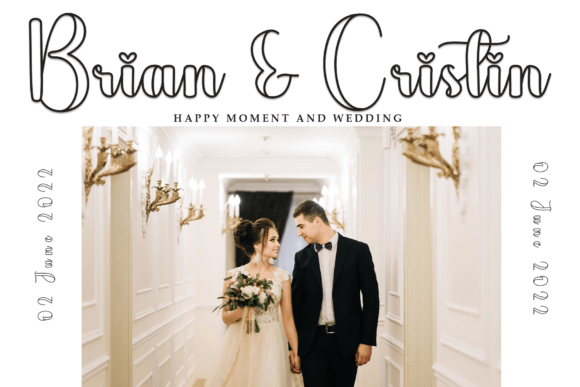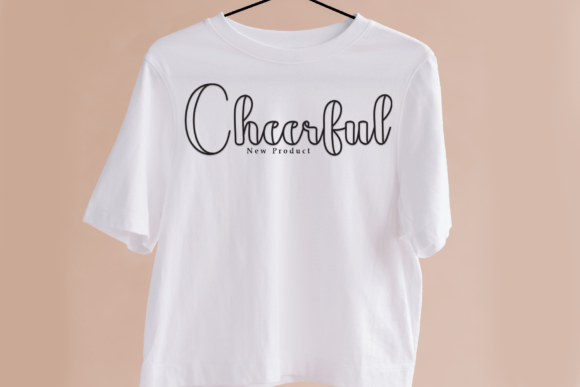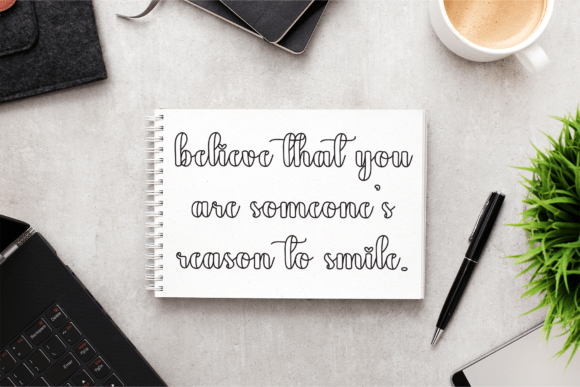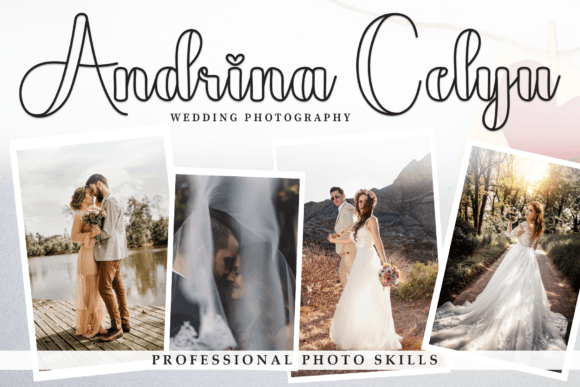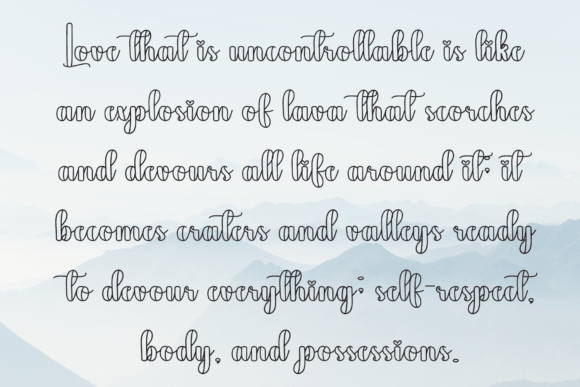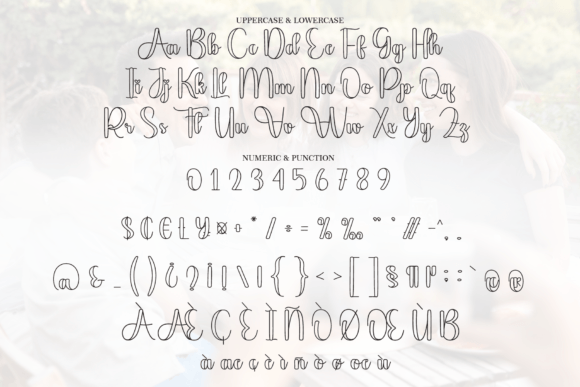
Introduction to Laughter Font
Who hasn’t felt a rush of excitement when discovering a new design element that brings a project to life? It’s that moment when creativity sparks, and the possibilities seem endless. For designers, finding the perfect font can be the difference between a good design and a great one. And that’s exactly what Laughter Font offers – a playful and stylish font that’s sure to add a youthful spirit to any creative project.
Laughter Font is more than just a design resource; it’s a high-quality tool that can be used to create stunning visual effects, from branding designs and labels to casual designs like packaging and posters. With its transparent background, this font is perfect for designers who want to add a touch of elegance to their work without compromising on visual impact.
Whether you’re working on a professional project or a personal creative endeavor, Laughter Font is a valuable addition to your design toolkit. And the best part? It’s encoded with PUA characters, making it accessible without the need for additional design software. Download Laughter Font today and unlock a world of creative possibilities!
Key Features of Laughter Font
- High-quality, hand-drawn design for a creative project
- Includes a range of expressive and playful characters, ideal for adding humor and whimsy to your design
Honest Review: Laughter Font
As a designer, I’m always on the lookout for high-quality fonts that can elevate my creative projects. Recently, I had the chance to try out the Laughter Font, and here’s my honest review.
- The Laughter Font has a unique and playful design that’s perfect for adding a touch of whimsy to my projects.
- The font is highly customizable, with a transparent background that makes it easy to work with.
- The Laughter Font is not suitable for serious or formal projects, as its playful design may not be taken seriously.
- The font may not be as versatile as some other fonts on the market, with limited font styles and weights.
Overall, I’m impressed with the Laughter Font. It’s a great addition to my design resource library, and I’ll definitely be using it in my future creative projects. If you’re looking for a fun and playful font, the Laughter Font is definitely worth checking out.
Tips for Getting the Most Out of Laughter Font
To get the most out of Laughter Font, experiment with different font sizes, colors, and combinations. Use it to create visually appealing headings, titles, and captions. You can also use it to add a personal touch to your designs, making them stand out from the crowd.
Laughter Font is perfect for creating social media graphics, logos, typography, and other design elements. It’s also great for adding a touch of whimsy and creativity to your presentations, documents, and websites. With its high-quality design and transparent background feature, Laughter Font is an excellent resource for designers and non-designers alike.